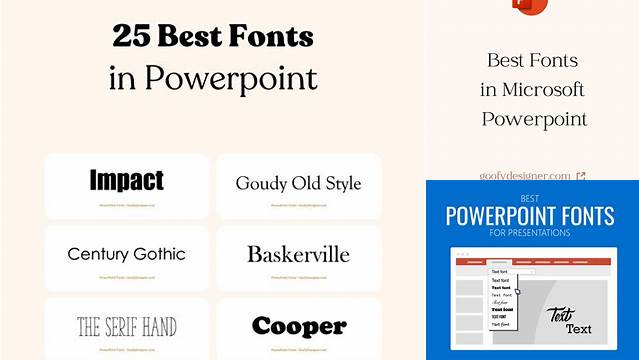
Best PowerPoint Fonts 2025
Hey there, presentation pros! Are you ready to level up your PowerPoint game in 2025? Choosing the right font is more than just picking something that looks pretty; it's about creating a visually appealing and easily digestible experience for your audience. A good font choice can be the difference between a snoozefest and a standing ovation. So, let's dive into the best PowerPoint fonts that will help you make a lasting impression.
Understanding the Importance of Font Choice in PowerPoint
Before we get into the nitty-gritty, let's talk about why font choice matters so much. Think of your presentation as a visual story. The font is like the voice of that story. A poorly chosen font can muddle the message, making it difficult for your audience to focus and retain information. On the other hand, a well-chosen font enhances readability, reinforces your brand, and adds a professional touch to your slides. First impressions are crucial, and your font choice is often the first thing your audience will notice. It sets the tone and can significantly impact how your audience perceives your message. In a world dominated by visual communication, it's essential to master the art of font selection. You wouldn't use a shaky, illegible handwriting for a formal document, right? The same principle applies to your PowerPoint presentations. The right font makes your information accessible and engaging, while the wrong one can create confusion and frustration. Your font choice must complement your content, visual elements, and overall presentation style. In 2025, presentations are becoming more dynamic and interactive, so choosing fonts that can keep up with these trends is critical. Consider how your font will look on different screen sizes and devices. A font that looks great on a large projector might appear cluttered on a mobile device. Accessibility is another key factor. Ensuring your fonts are easy to read for people with visual impairments is not only good practice but also expands your audience reach. Remember, your goal is to communicate effectively and leave a lasting impression, and the right font plays a vital role in achieving that.
Key Considerations for Font Selection
Several factors come into play when choosing the best PowerPoint fonts for your presentation. Firstly, readability is paramount. The font should be easy to read from a distance, even under less-than-ideal lighting conditions. Stick to fonts with clear letterforms and adequate spacing. Avoid overly ornate or stylized fonts, especially for body text. A clean, simple font ensures your audience can effortlessly absorb the information. Secondly, font pairing is essential. Choose fonts that complement each other. Generally, use a sans-serif font for headings and a serif font for body text, or vice versa. Be sure your fonts' styles align to avoid clashing and maintain a cohesive look. Thirdly, consistency is key. Use the same fonts throughout your presentation to maintain a unified brand identity. Avoid mixing multiple fonts, as this can create visual clutter and make your slides appear disorganized. Use a limited set of fonts—ideally two or three—to maintain a professional and polished look. Fourthly, think about your target audience. Consider their preferences and the context of your presentation. A playful font might be suitable for a children's event but entirely inappropriate for a corporate board meeting. Finally, consider the presentation's purpose. Choose fonts that reflect the mood and tone of your presentation. A serious topic might call for a classic and professional font, while a creative presentation might allow for something more modern or experimental. Think about how the fonts align with your overall brand identity. Do they match your company's existing style guidelines? By considering these factors, you can make informed font choices that elevate your presentations.
Top PowerPoint Fonts for 2025: The Ultimate List
Alright, let's get down to the good stuff: the actual fonts. Here's a curated list of the top PowerPoint fonts for 2025, categorized for your convenience, and keeping in mind the latest design trends. These fonts will help you create visually stunning presentations that captivate your audience and leave a lasting impression. From classic choices that never go out of style to modern options that add a touch of flair, there's something here for every presentation style.
Sans-Serif Fonts: The Modern Choice
- Roboto: A versatile and highly readable font, perfect for both headings and body text. Its clean and modern design makes it a favorite for corporate and professional presentations. It's easily legible on screens, making it a reliable choice for various presentation environments.
- Open Sans: Another excellent choice for presentations, this font boasts a friendly and open design, ensuring readability on any screen size. Its neutral style makes it a great fit for various types of content, from data-heavy slides to creative concepts.
- Lato: A well-balanced sans-serif font that combines warmth with a professional appearance. It's incredibly versatile and works well for both headings and body text, making it a reliable choice for any presentation. Its clear letterforms ensure excellent readability, even at smaller sizes.
- Montserrat: This font brings a touch of personality and modernity to your presentations. Its clean and geometric design is perfect for headings, and its various weights give you the flexibility to create visually appealing slides. Its urban aesthetic fits well with contemporary presentation styles.
- Poppins: A geometric sans-serif font that's both stylish and functional. Its clear lines and balanced proportions make it ideal for creating a modern and engaging presentation. Poppins offers excellent readability on various devices and screen sizes.
Serif Fonts: Classic and Elegant
- Georgia: A classic serif font known for its excellent readability. Its slightly bolder design makes it a great choice for body text, especially in situations where readability is a priority. It is an ideal choice for presentations that need a touch of elegance and formality.
- Garamond: A timeless serif font that exudes sophistication. It's perfect for adding a touch of class to your presentations, especially when you want to create a sense of authority or elegance. It is slightly more sophisticated than Georgia and is suitable for titles or headings.
- Playfair Display: This high-contrast serif font is a stylish choice for headlines and titles. Its elegant design adds a touch of luxury and sophistication to your slides, making them more eye-catching. Its refined appearance makes it ideal for more creative and design-focused presentations.
- Lora: A well-balanced serif font that works well for both headings and body text. It combines a classic aesthetic with a modern touch, making it suitable for a wide range of presentation styles. It ensures readability and a clean look for the audience.
Display Fonts: For Headlines and Titles
- Bebas Neue: A tall, impactful sans-serif font that works best for headlines and short text blocks. Its bold design ensures your titles grab the attention of your audience, making your message instantly clear. It offers a contemporary and stylish look that stands out.
Conclusion: Crafting Presentations That Impress
Choosing the best PowerPoint fonts is an essential step in creating effective and engaging presentations. By understanding the importance of font choice, considering key factors, and following the tips discussed above, you can create presentations that capture your audience's attention and leave a lasting impact. Always be mindful of the latest design trends and the needs of your audience to ensure your presentations resonate and achieve your communication goals. Now go forth and create presentations that will wow your audience in 2025 and beyond!